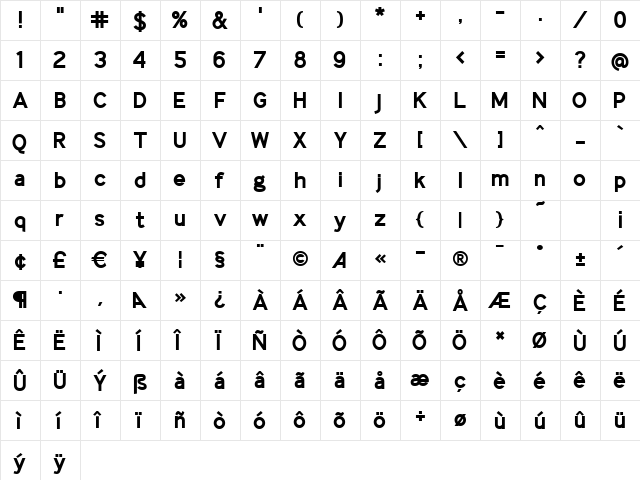
IdentikalSans Bold Font Preview
IdentikalSans Bold
Design Context for IdentikalSans Typeface
IdentikalSans is a composed and adaptable typeface that performs quietly and consistently across a wide range of design contexts. Its bold stroke weight gives it real presence on the page.